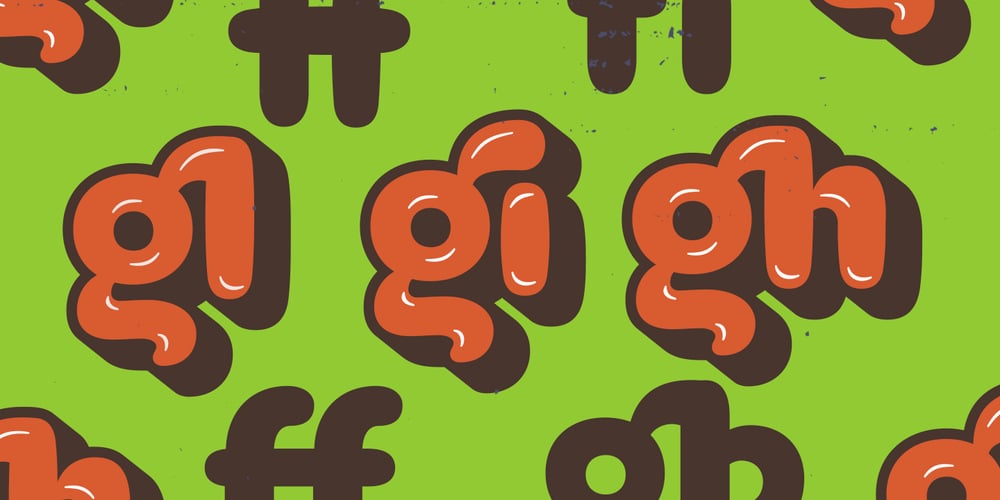
Clarence Alt Font Family was designed by Andrey Kudryavtsev, Rodrigo Araya Salas, Franco Jonas Hernández and published by RodrigoTypo. Clarence Alt contains 4 styles and family package options. It is a new version of Clarence, with very noticeable changes, very funny and informal signs. It also contains different variants like Shine, Extrude and you can combine them enjoy it! 🙂